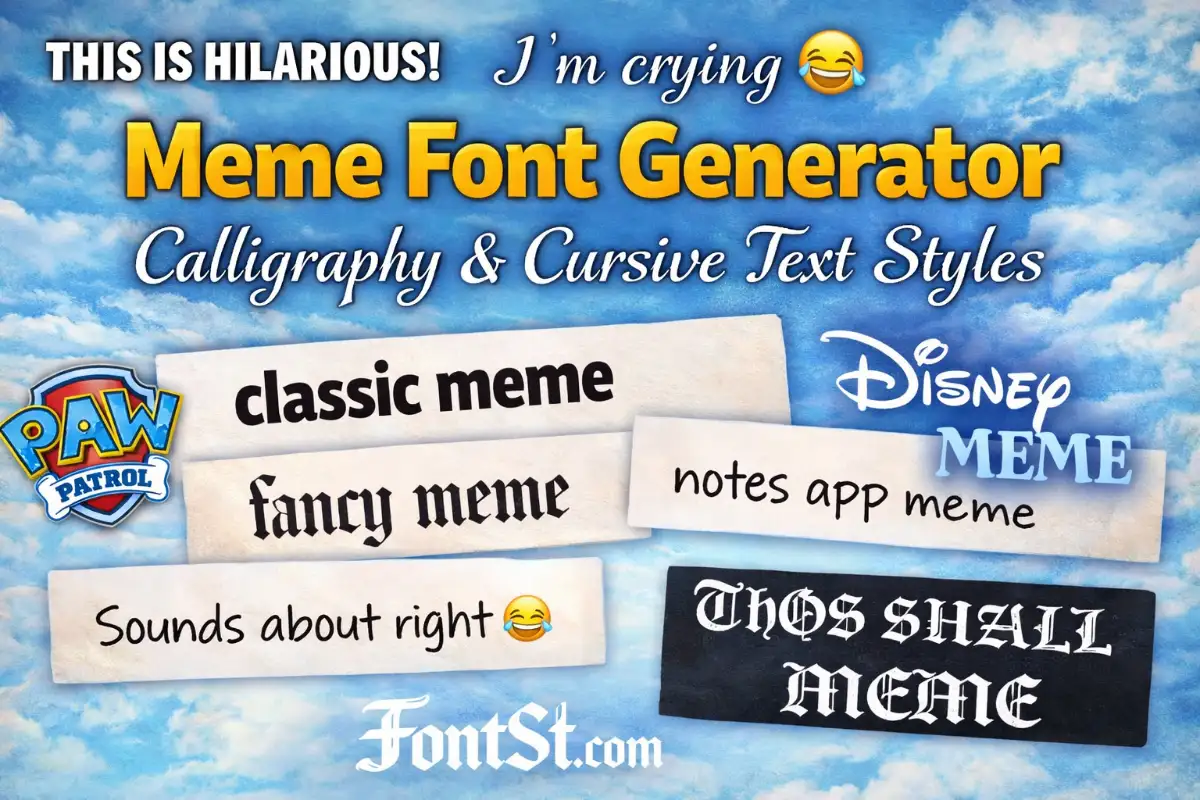
Meme Font Generator – Calligraphy & Cursive Text Styles
Turn any caption into meme-ready text in seconds with FontSt’s Meme Font Generator below—from classic bold meme vibes to stylish calligraphy and cursive looks. Pick a style you like, then Copy & Paste it instantly for posts, stories, comments, and edits.
Memes aren’t just the joke—the font is half the punchline. Use Font St’s meme font generator below to switch from classic bold meme text to stylish calligraphy and cursive looks, then Copy & Paste your favorite style anywhere.
A meme font is a text style people recognize instantly from internet culture—usually bold, high-contrast, and easy to read on images. The “classic meme look” is big, loud, and designed to be readable even on small screens. But modern memes also use softer styles—like calligraphy and cursive—for ironic, aesthetic, or “fake serious” vibes.
Common meme font goals:
Maximum readability on top of photos
Instant tone (funny, sarcastic, dramatic, cute)
Fast sharing (copy, paste, post)
The best meme font is the one that matches your meme’s mood and stays readable after you post it.
Test on your phone before posting—small screens expose messy fonts instantly.
Common Meme Font Names And Styles
There are many types of meme font name searches. Some refer to real fonts, some refer to “styles people associate with a meme theme.” Here are popular directions and what they’re best for.
Comic Sans Meme Style
Comic Sans is often used for intentionally goofy, childish, or chaotic humor. It’s the “I’m not taking this seriously” vibe.
Best for:
silly reaction memes
ironic low-effort humor
playful captions
Font Meme Calligraphy Style
Calligraphy meme text is used when you want a funny contrast—very elegant lettering for a very unserious message.
Best for:
“fancy drama” captions
ironic apologies
“royal” or “poetic” jokes
Font Meme Police Style
This phrase is usually used for “authority vibe” meme captions—clean, bold, and official-looking text (like warning signs, labels, or mock notices).
Best for:
fake announcements
“rule” memes
warning-label humor
Font Meme Tattoo
Tattoo-style meme text is bold and expressive, often leaning into Old English, script, or heavy lettering.
A text generator for memes converts your normal sentence into stylized meme lettering—bold, calligraphy, cursive, Old English, and more—so you can quickly match the vibe of your joke.
When To Use Font Meme Handwriting
Handwriting meme fonts are best for “notes app” humor, diary-style jokes, and soft aesthetic captions. Keep it short and readable to avoid messy results.
Quick Tip For Meme Font Online
A meme font online tool is the fastest way to try multiple styles without downloading fonts. Type, generate, copy, paste—then test on mobile to make sure it stays readable.